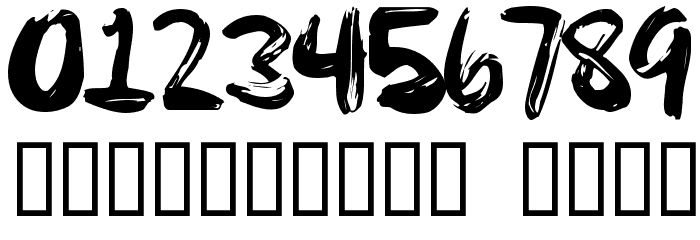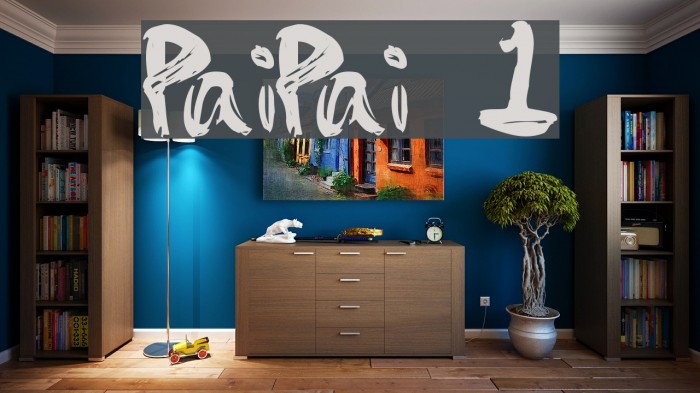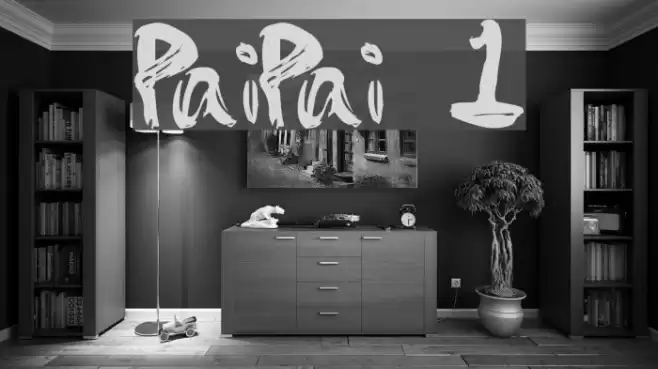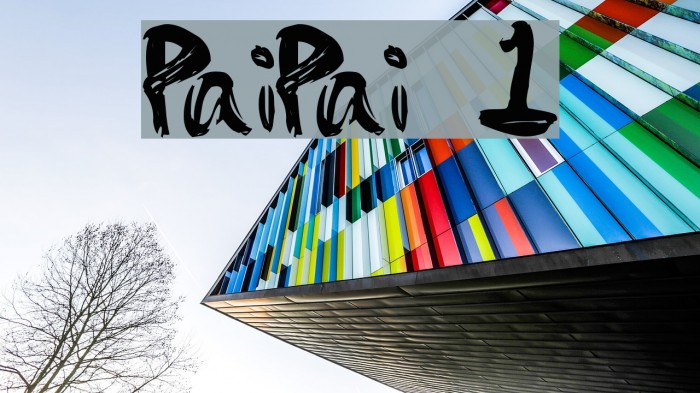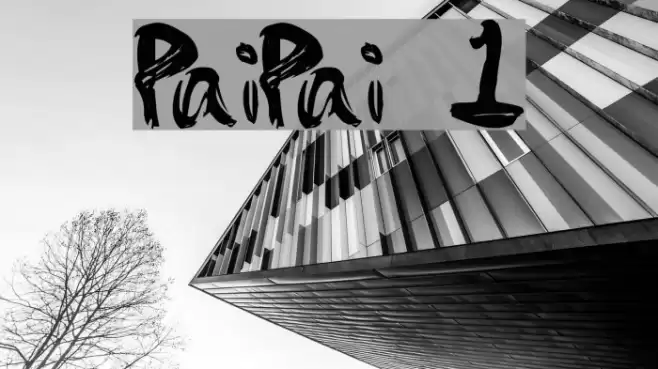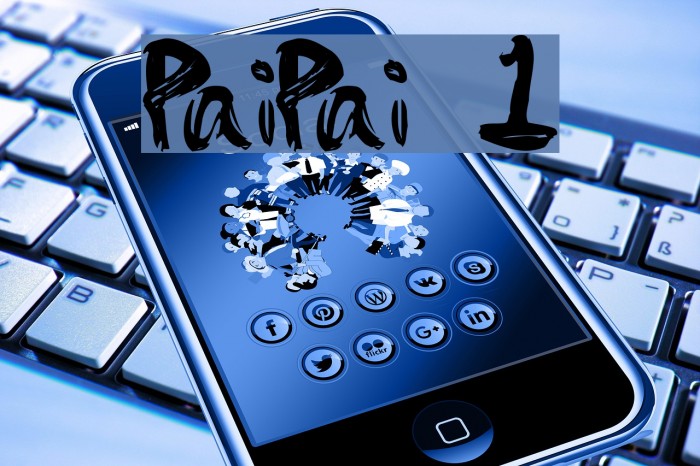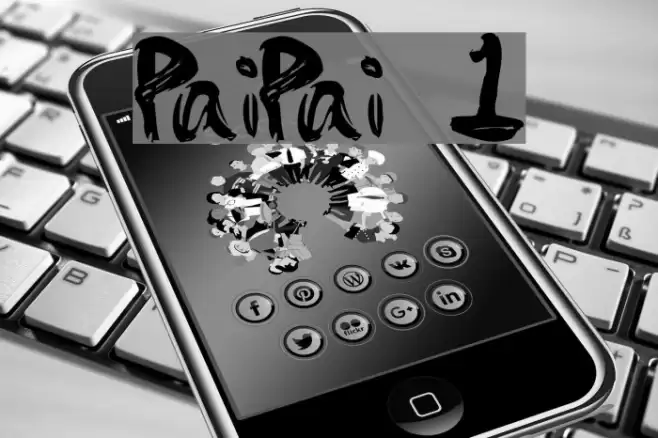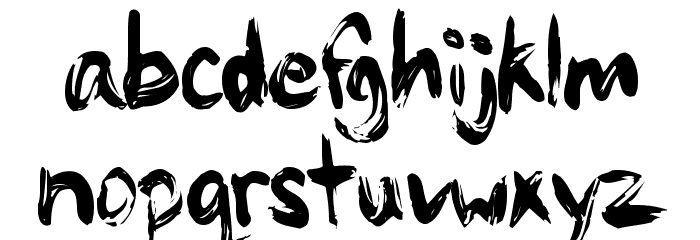
PaintyPaint 1 Font
| Estilo geral | Artistic, Expressive |
| Caso de uso | Headlines, Posters, Artistic Designs |
| Projetos propostos | Ideal for art-related projects, posters, album covers, and any design needing a bold, creative touch. |